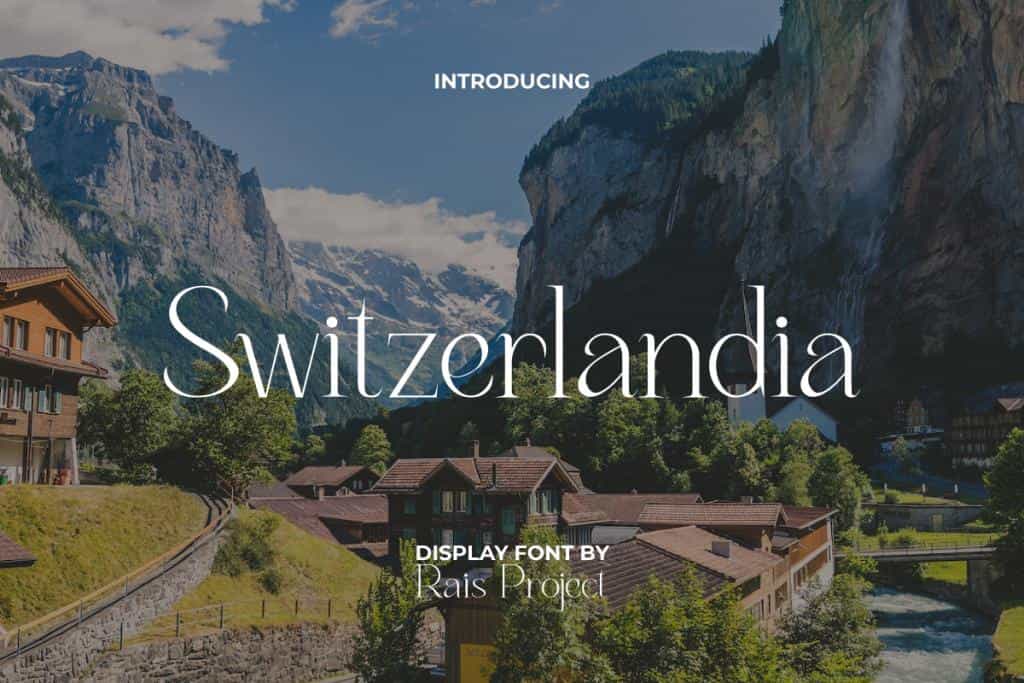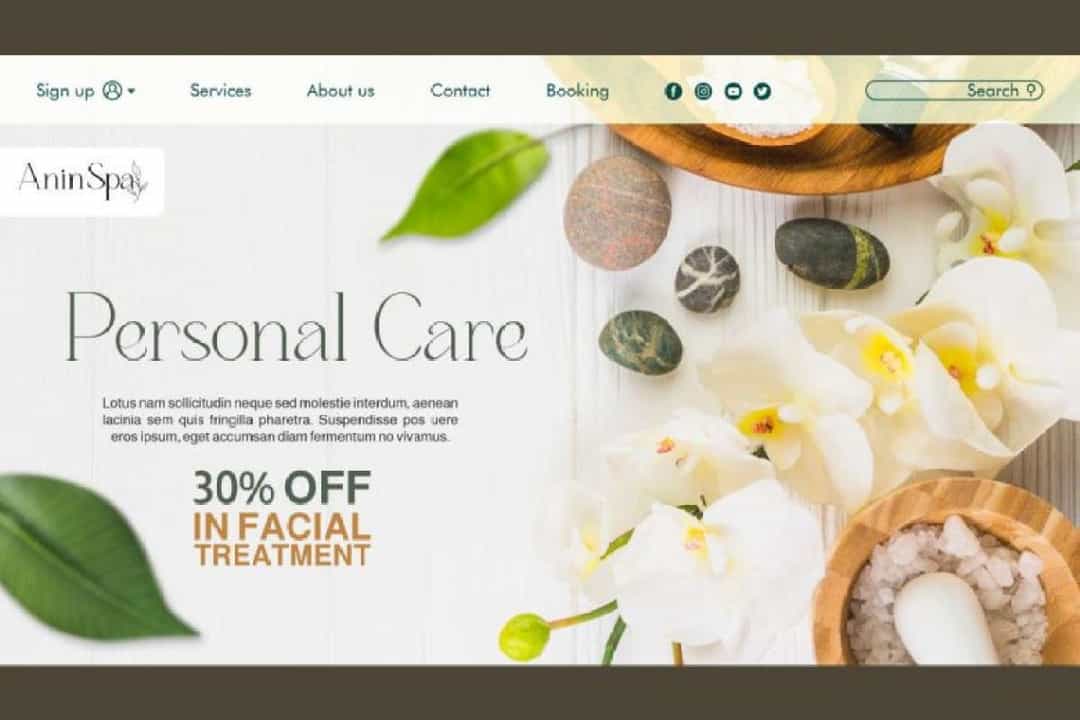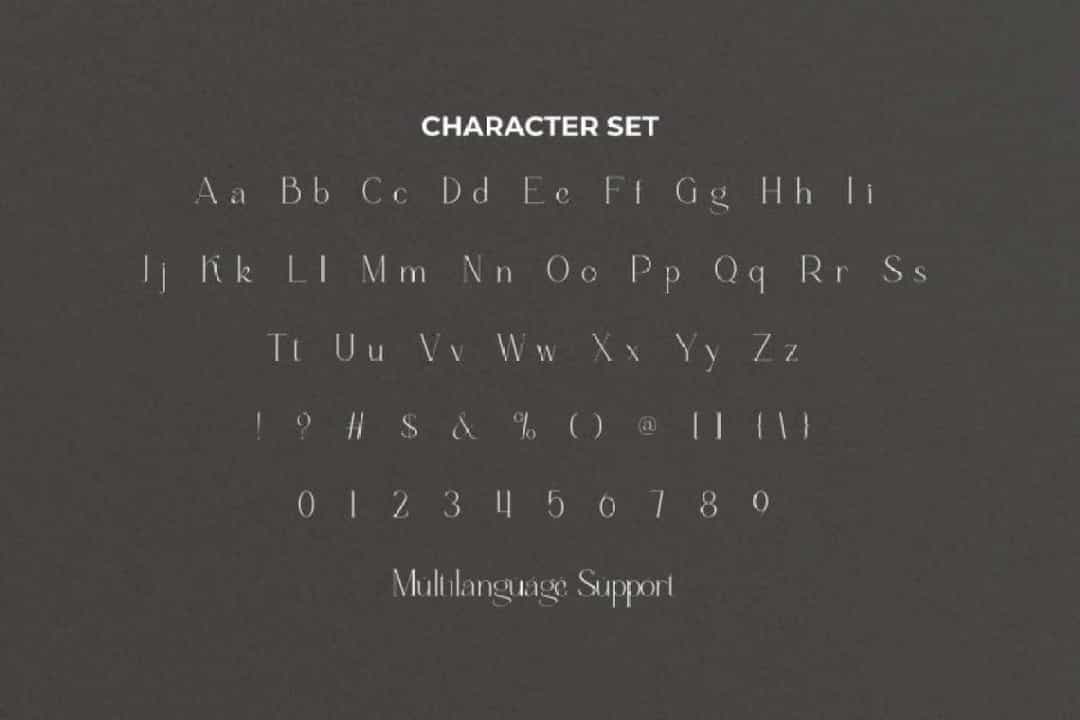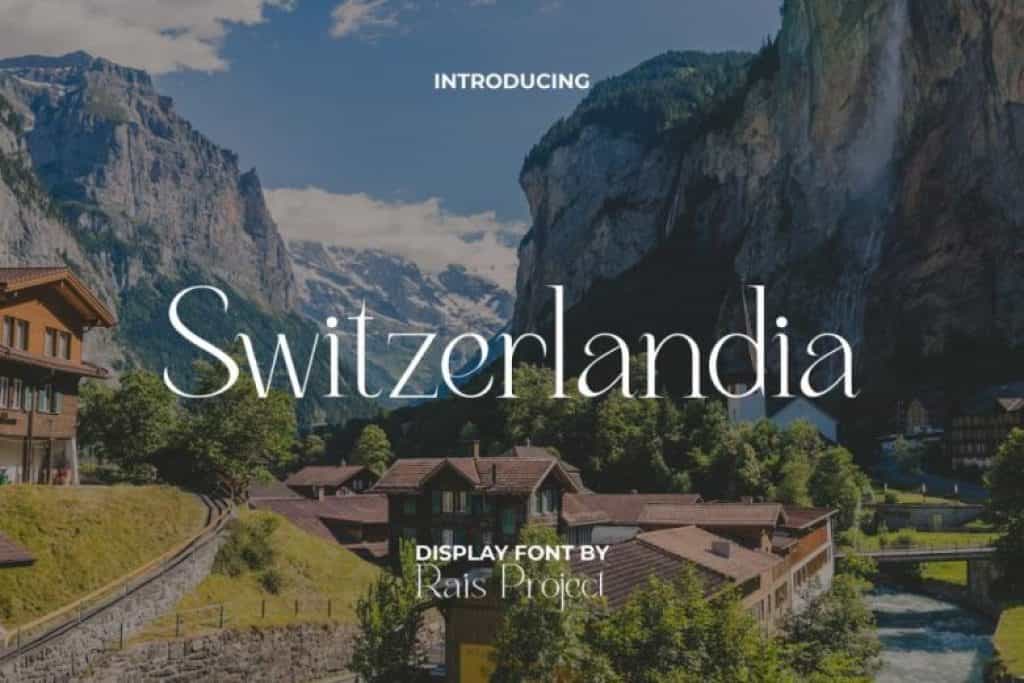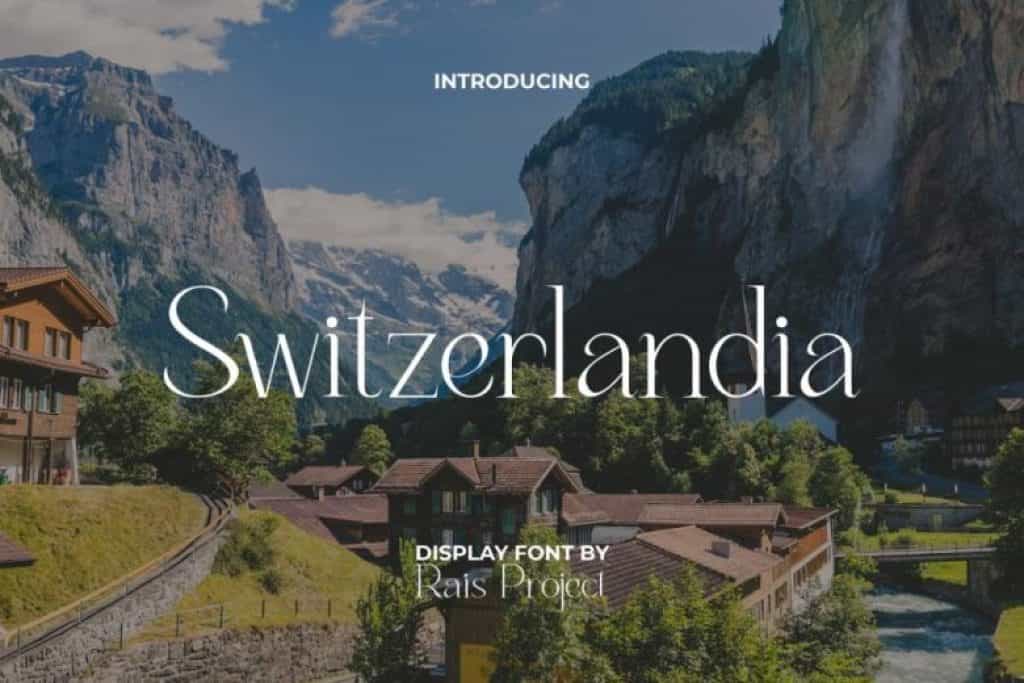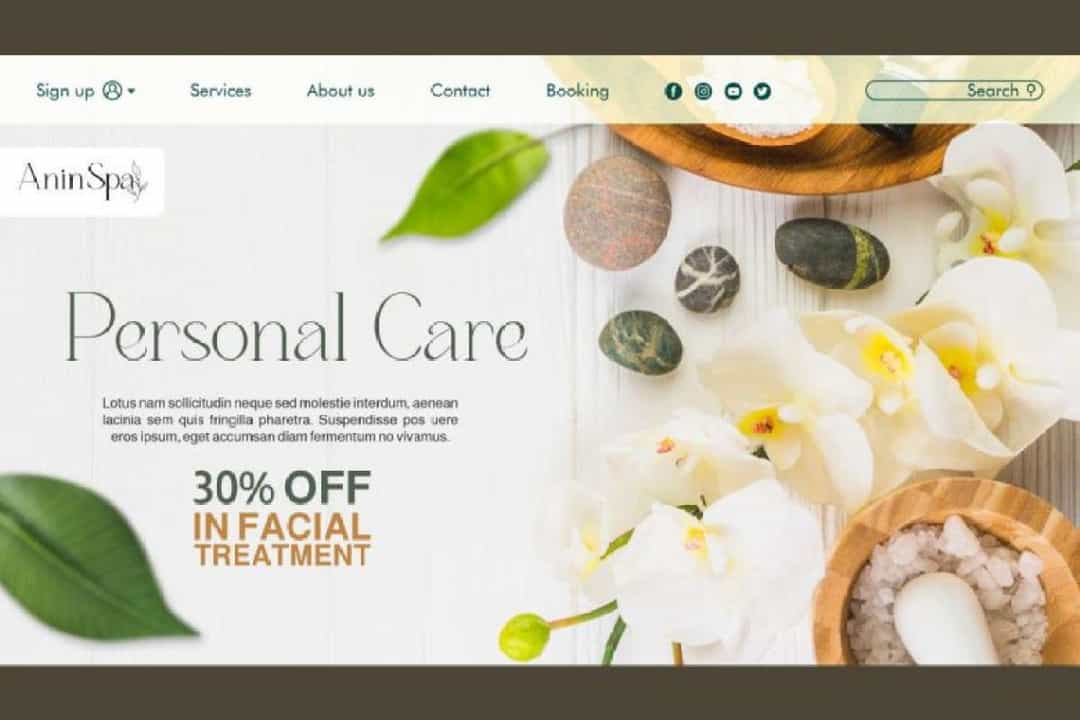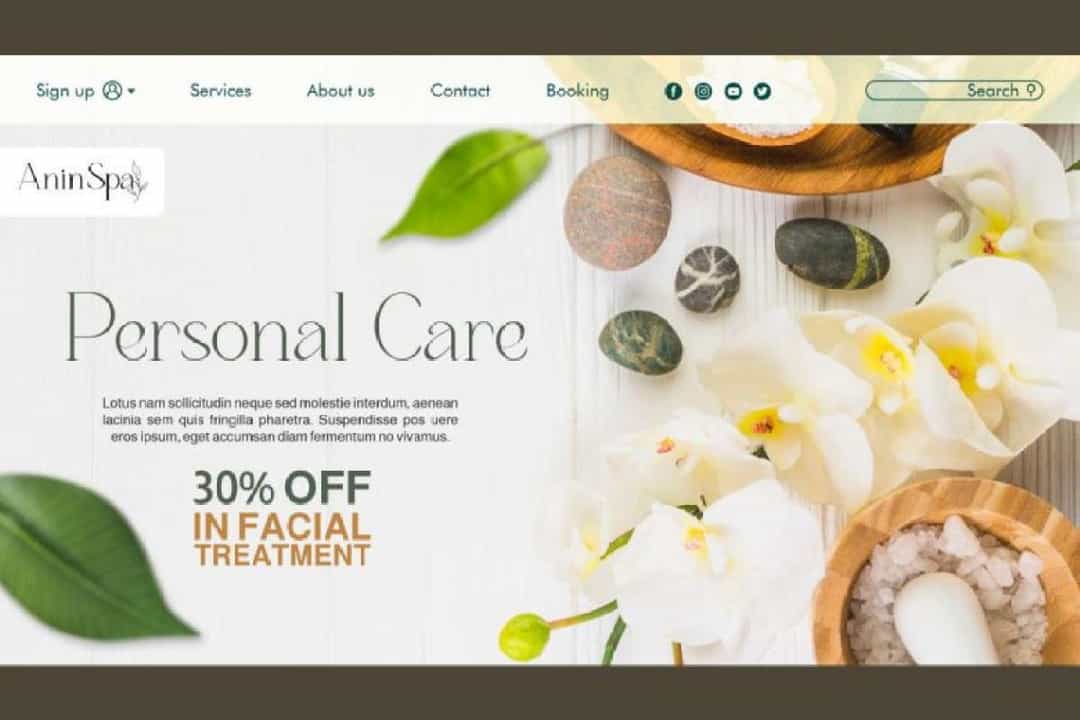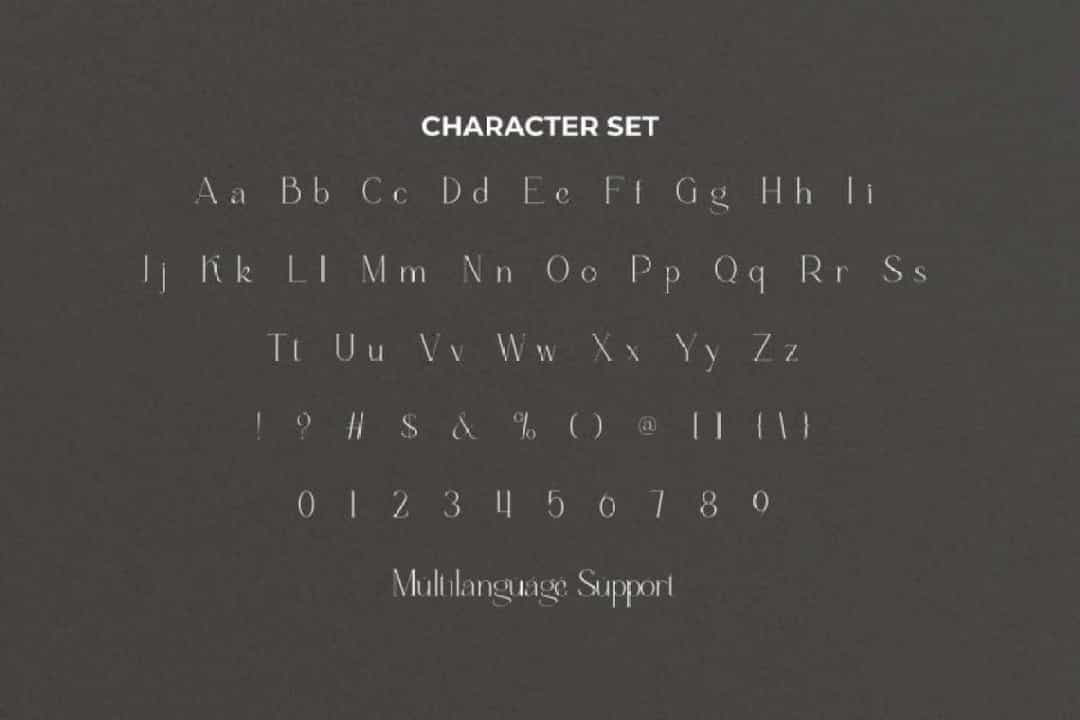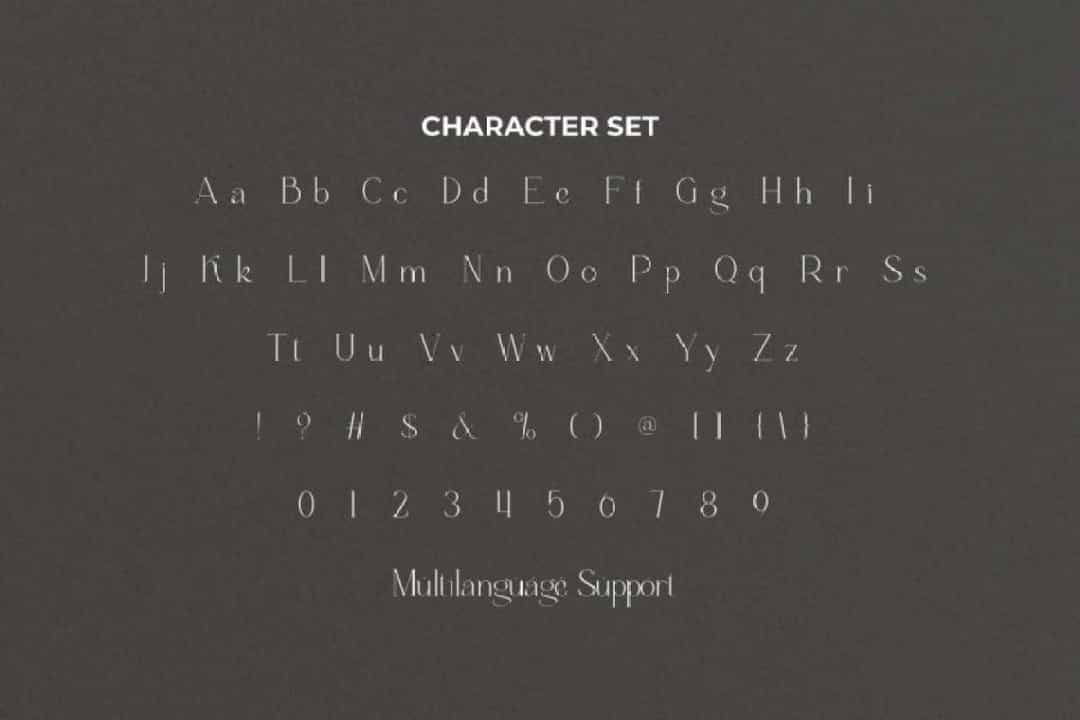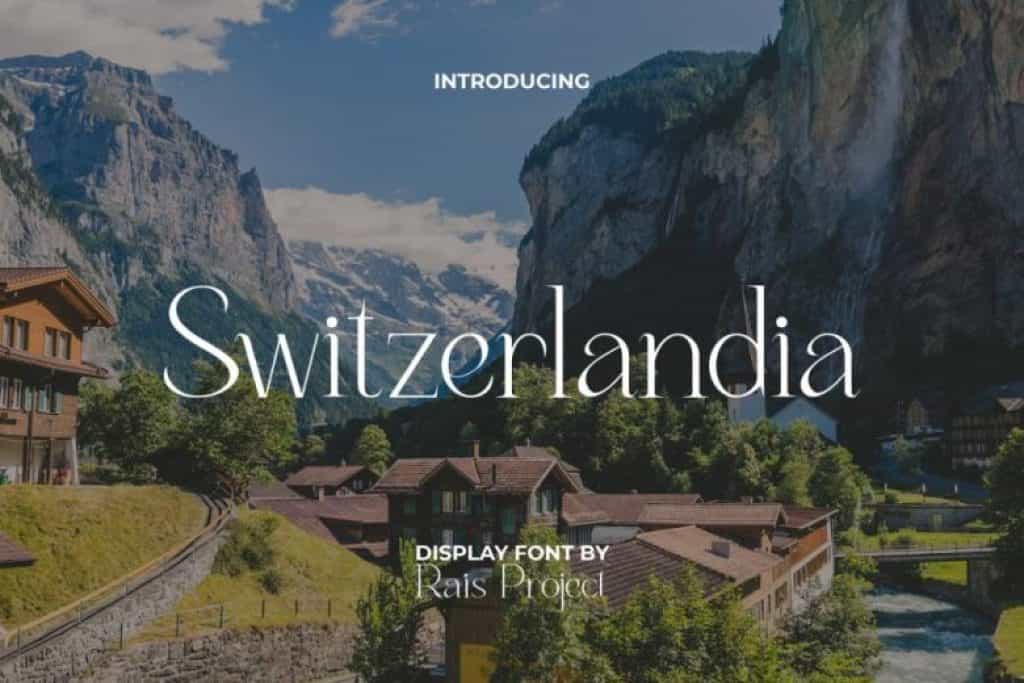
Switzerlandia Font is a contemporary minimalist serif display font with clean lines that makes for versatile uses in multiple styles. The Switzerlandia font also provides an extravagant and costly impression, making it suitable for use in corporate logos, brand names, business card covers/covers/covers for invitations/labels/menus/magazine posters/signs/quote webs etc!